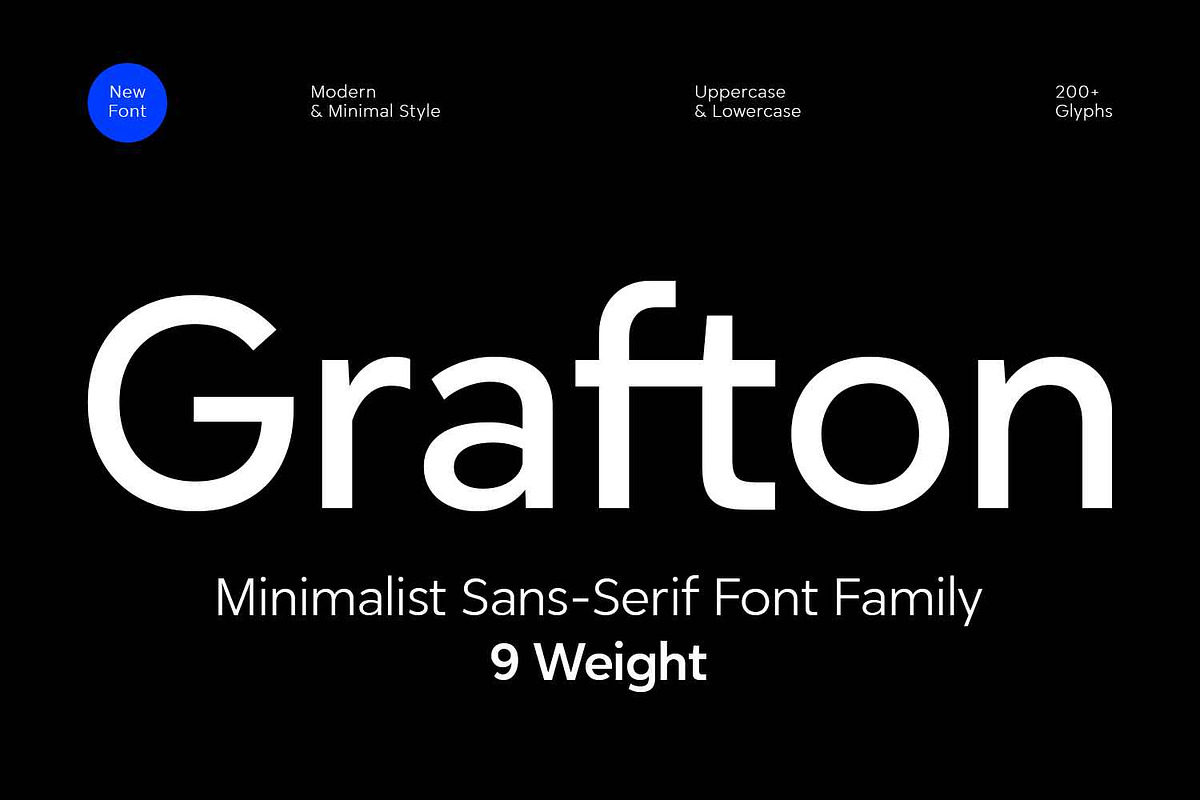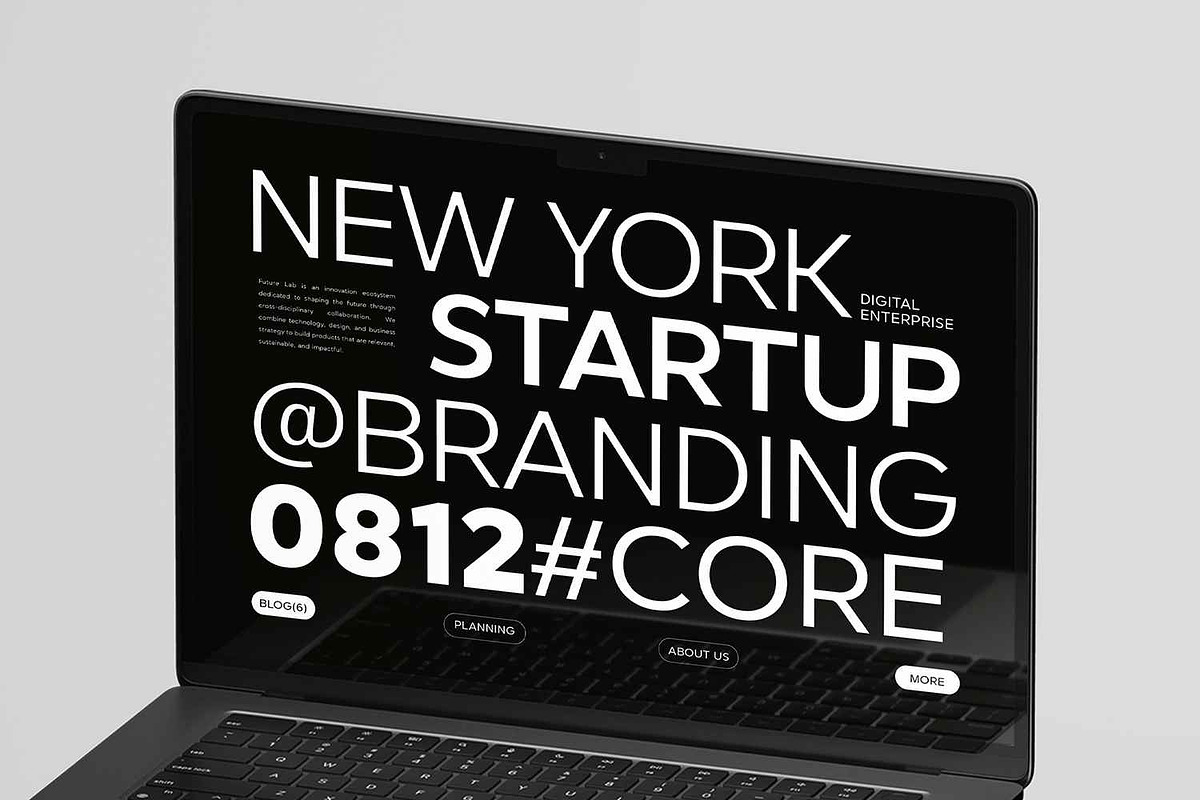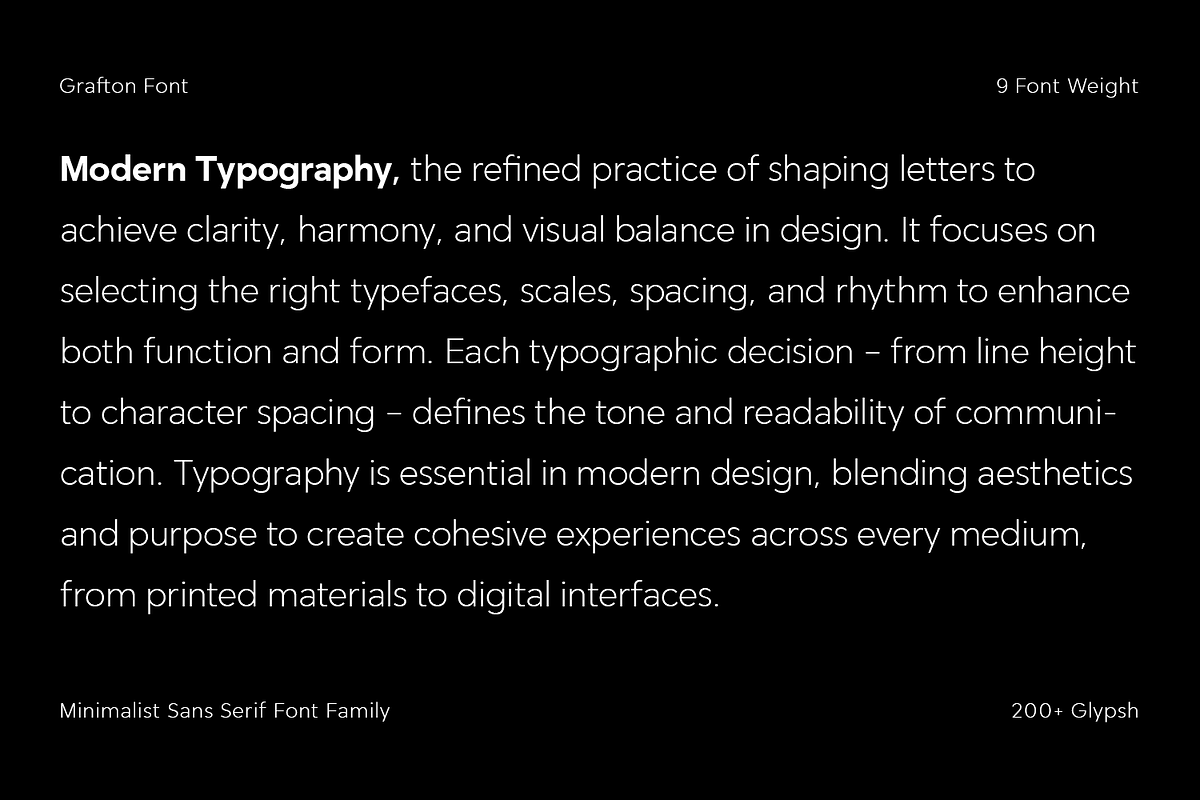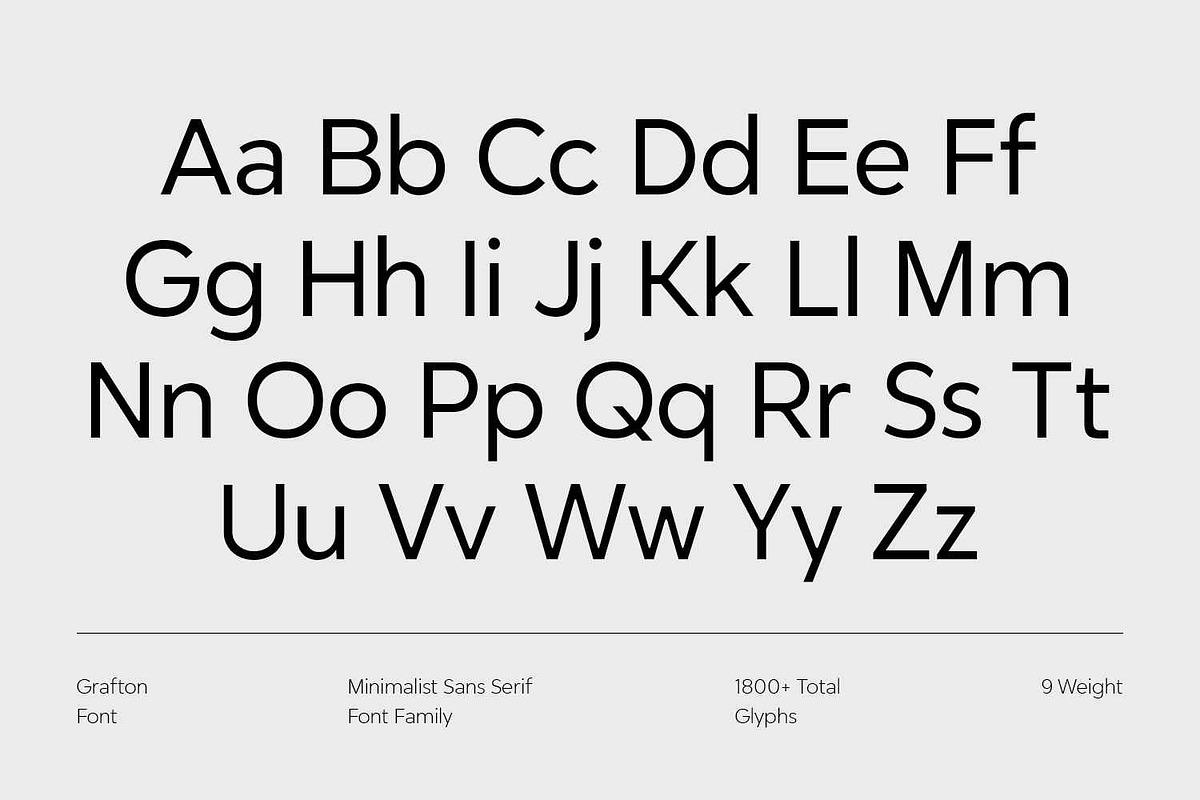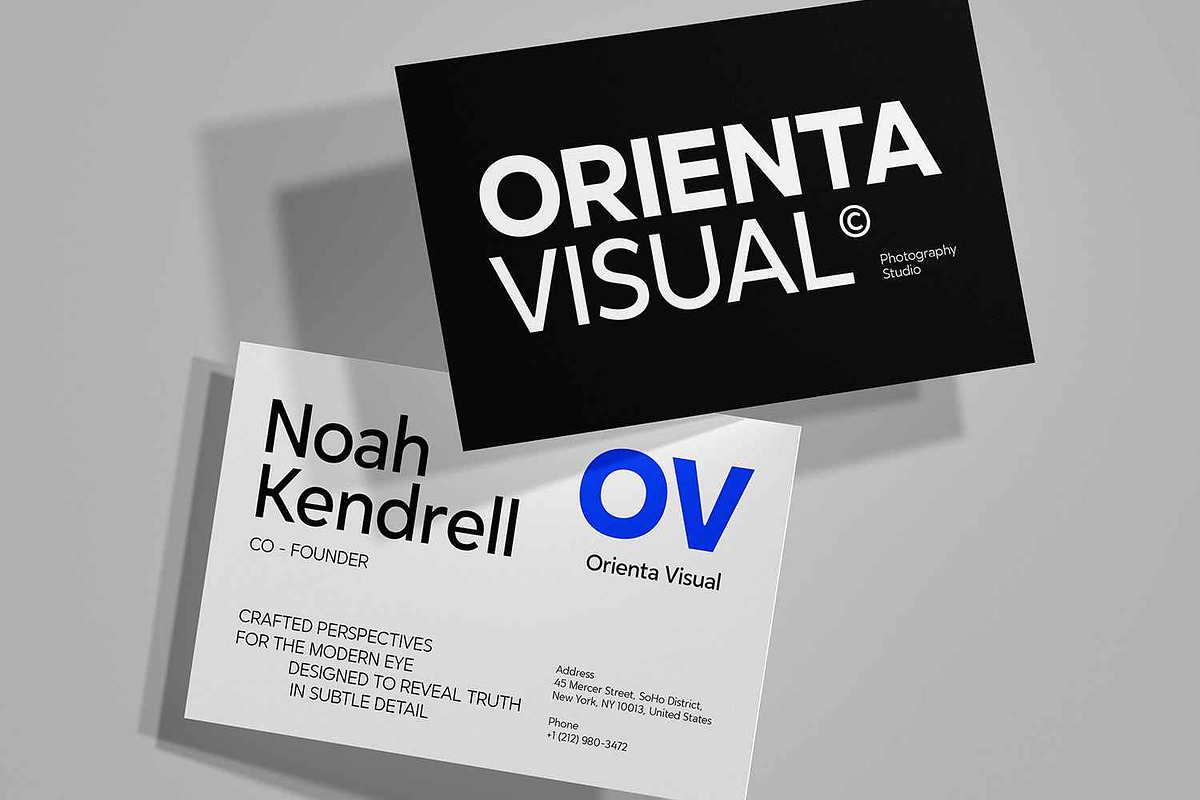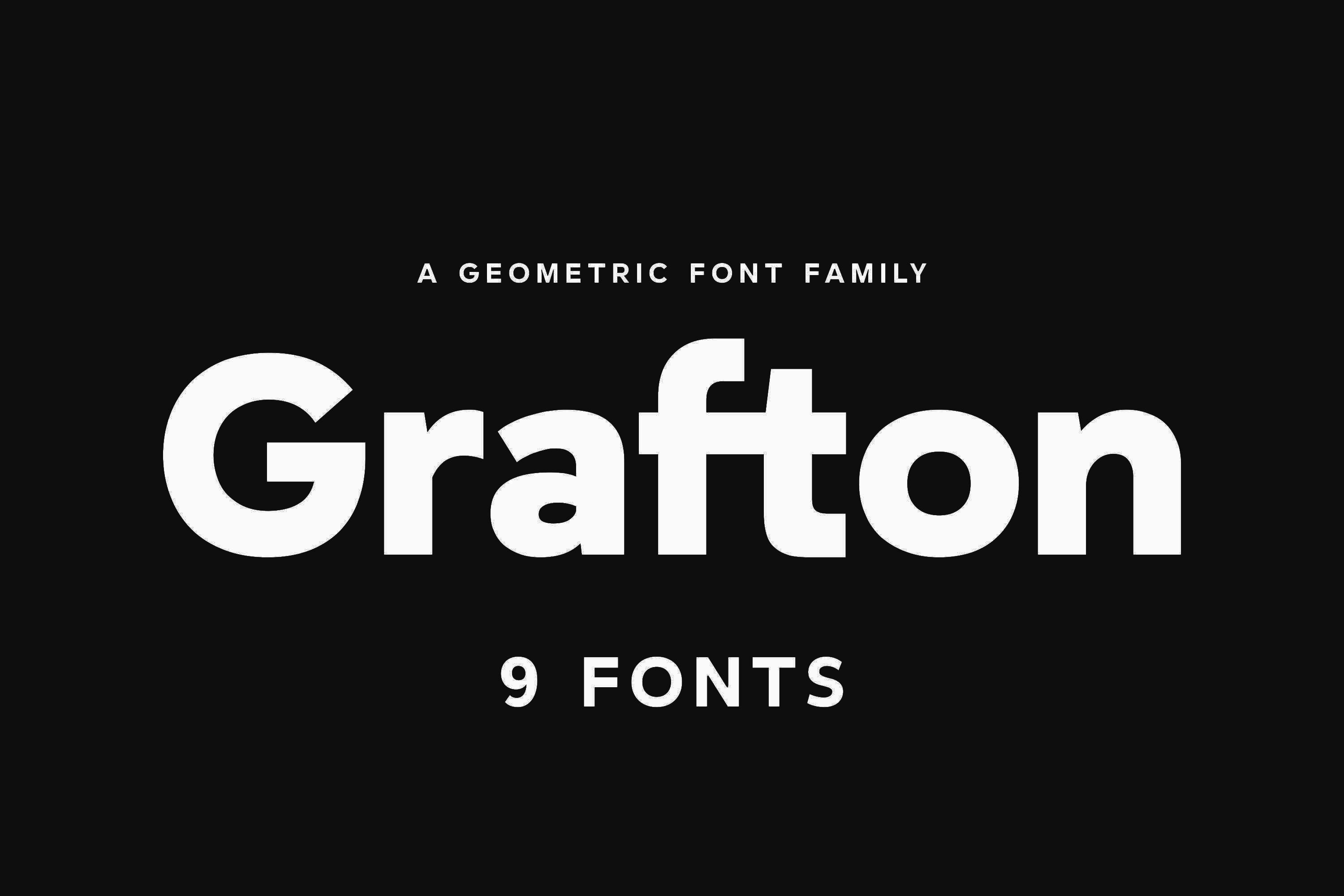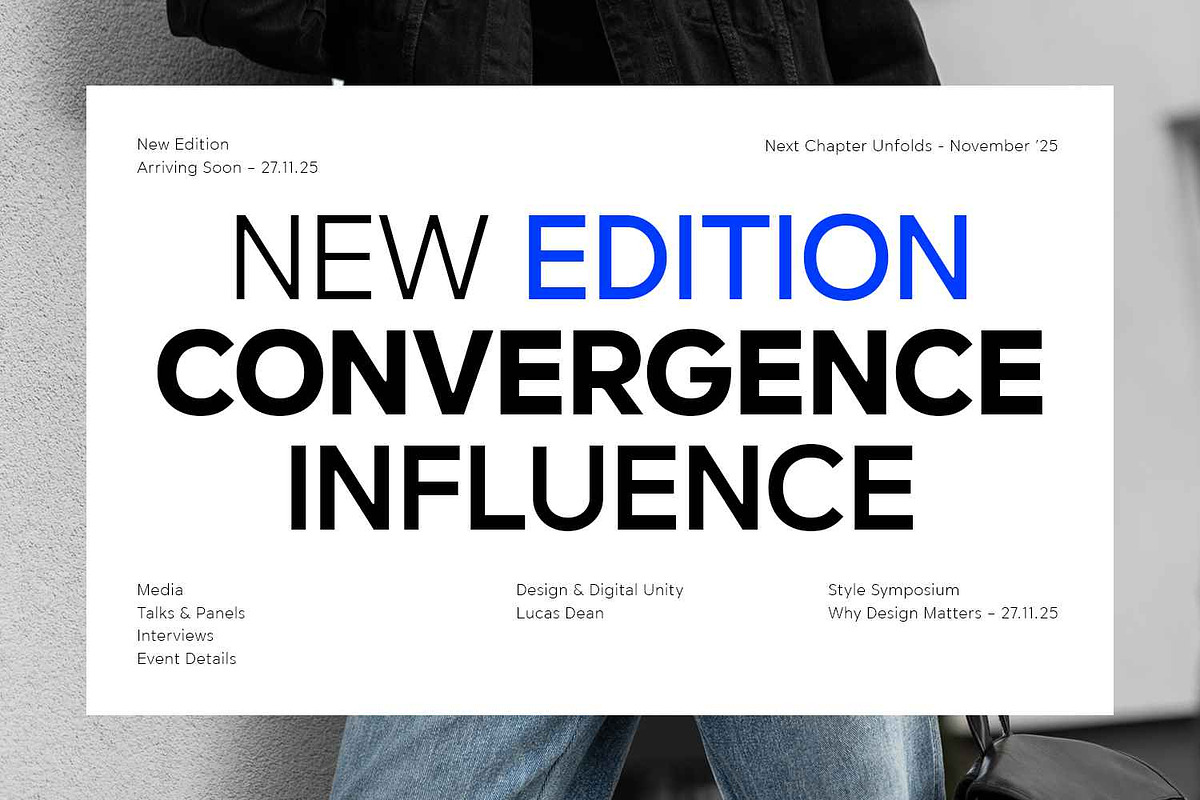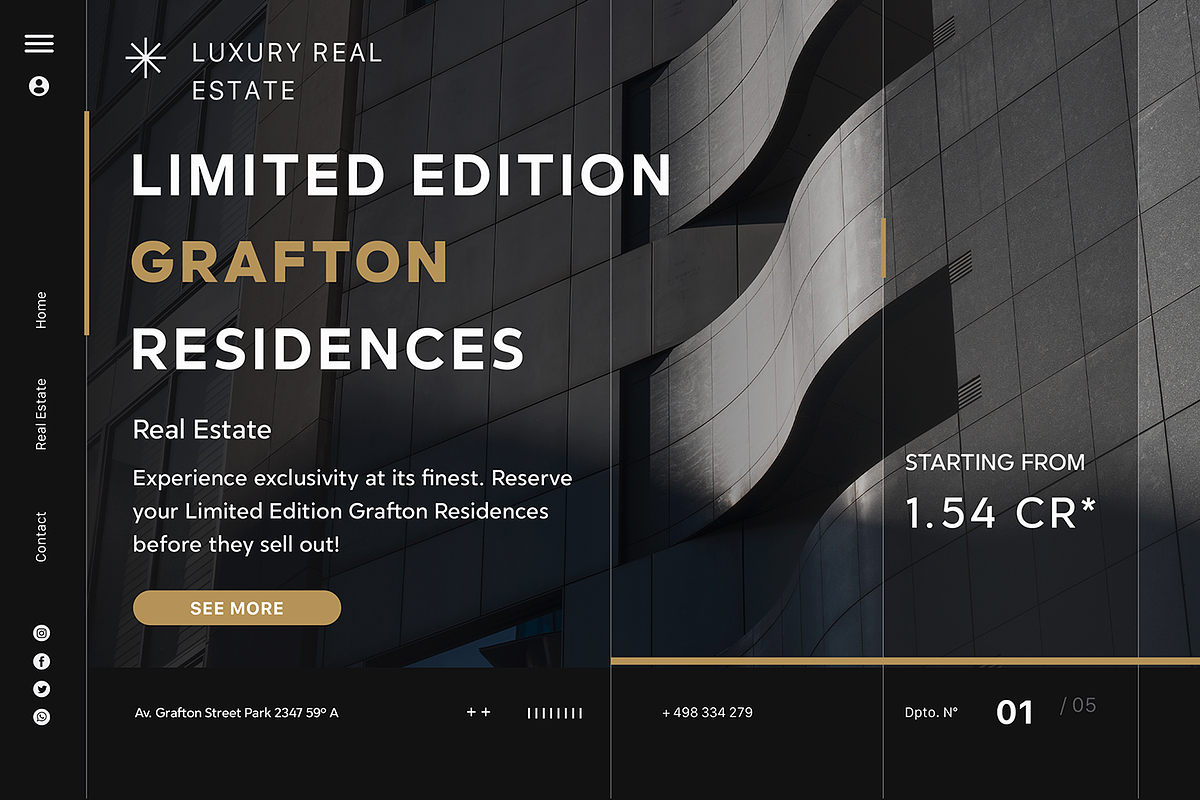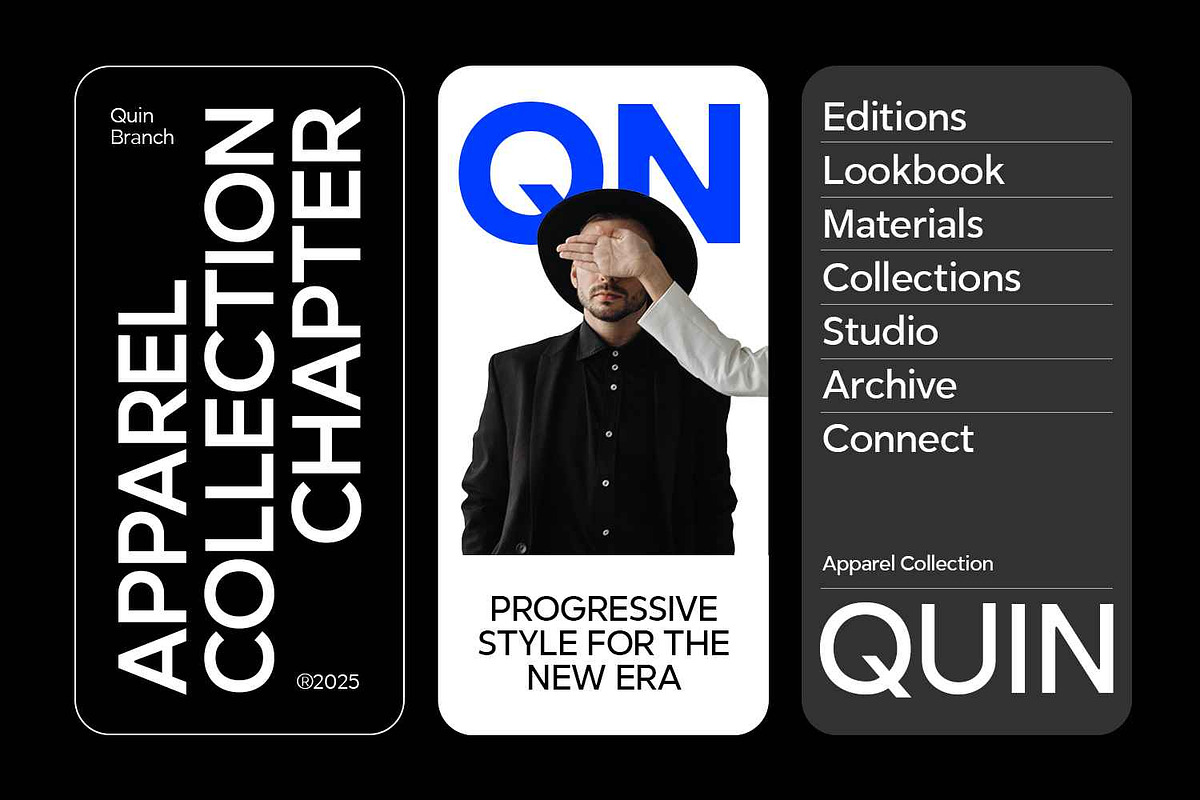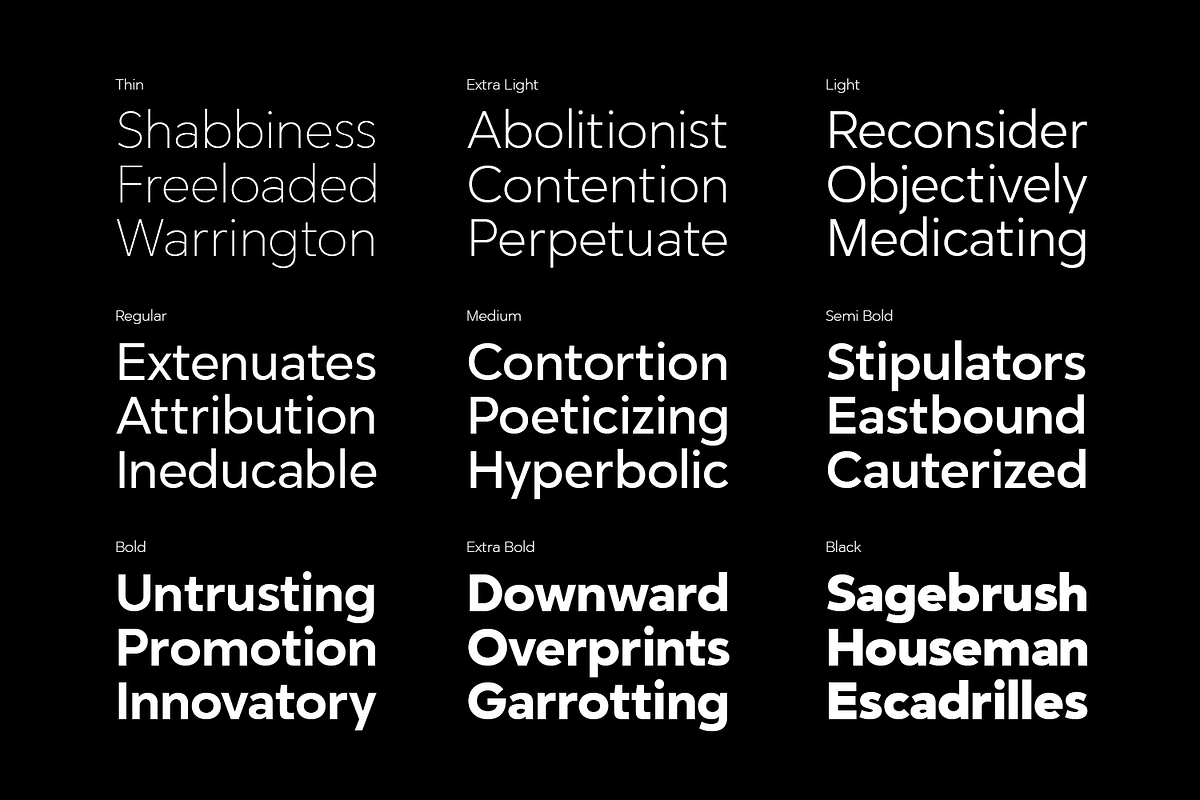
Grafton - Geometric Font Family
Grafton – Geometric Font Family embodies precision and balance through its meticulously structured letterforms. Designed with a modern geometric foundation, it brings a sense of order and clarity to every composition. The harmonious alignment of straight lines and smooth curves ensures a refined and professional appearance across all applications.
With nine distinct weights ranging from Thin to Extra Black, Grafton provides exceptional versatility for both subtle and bold expressions. Each weight maintains consistent geometry, allowing for seamless visual hierarchy and adaptability across print and digital media. Its structured design makes it a reliable choice for branding, editorial layouts, and interface typography.
The geometric architecture of Grafton enhances legibility while preserving visual impact. Every shape and proportion has been carefully crafted to ensure clarity, even in complex layouts or smaller text sizes. This makes it suitable for a wide range of modern design needs, from minimalistic headlines to contemporary corporate identities.
Distinctive yet understated, Grafton combines precision and aesthetics in a way that feels timeless. Its measured rhythm and consistent letter spacing contribute to a cohesive visual experience that resonates across styles and industries. Whether used in bold statements or refined compositions, Grafton maintains a sleek and confident tone.
Elevate every creative project with the strength and versatility of Grafton – Geometric Font Family. Explore its full potential and bring a modern, structured character to any design today.